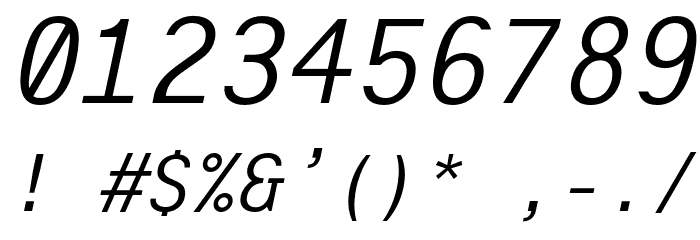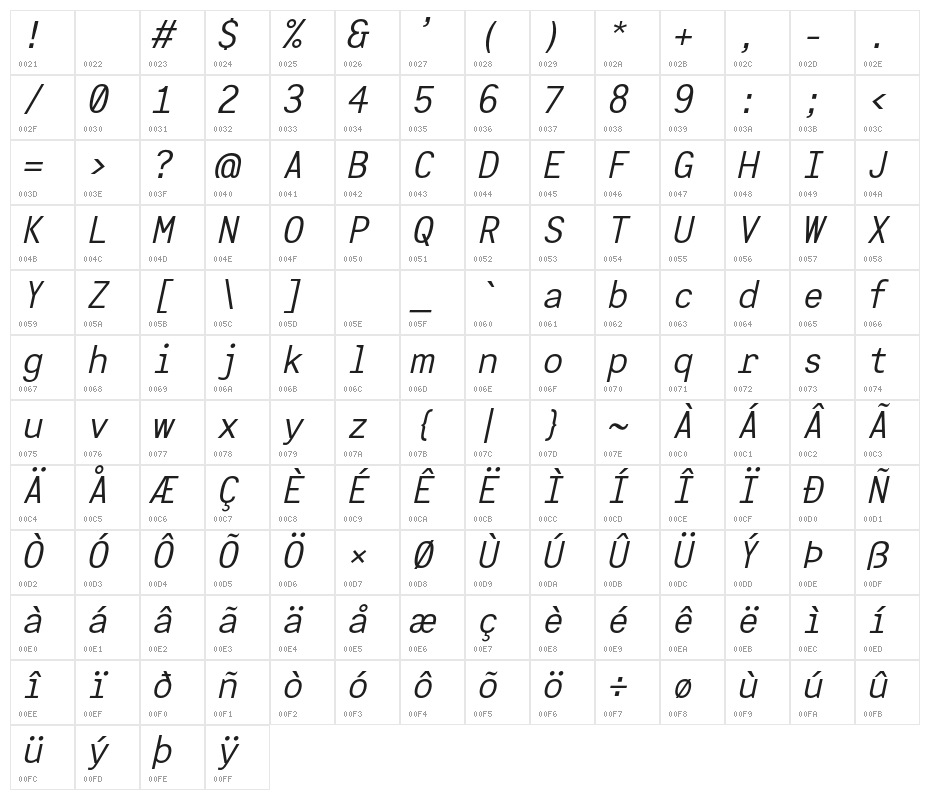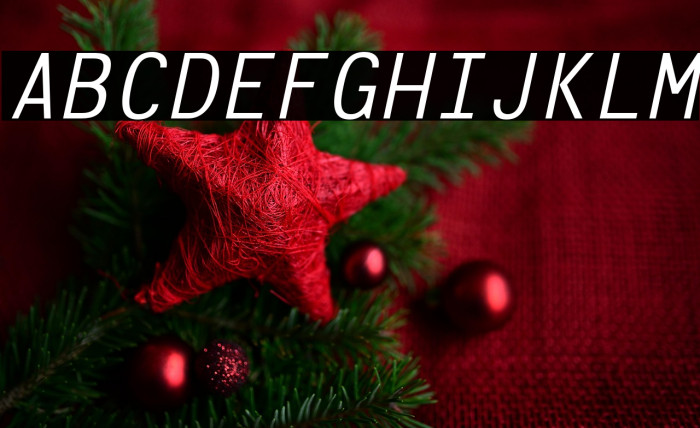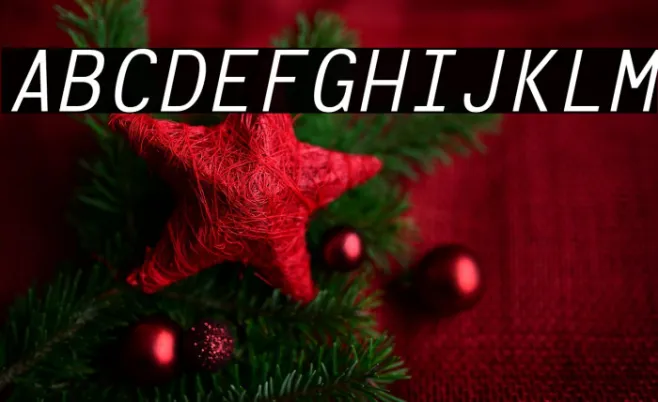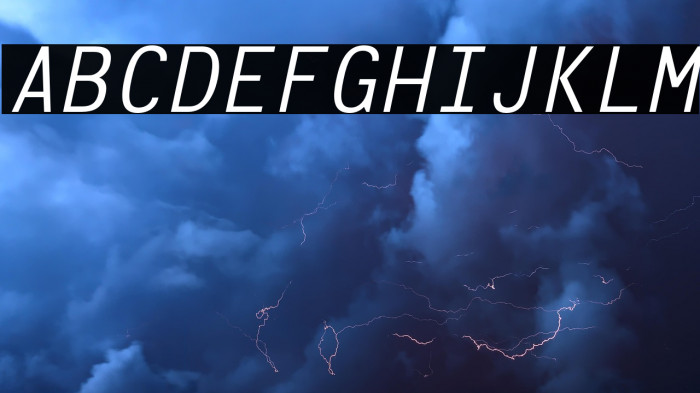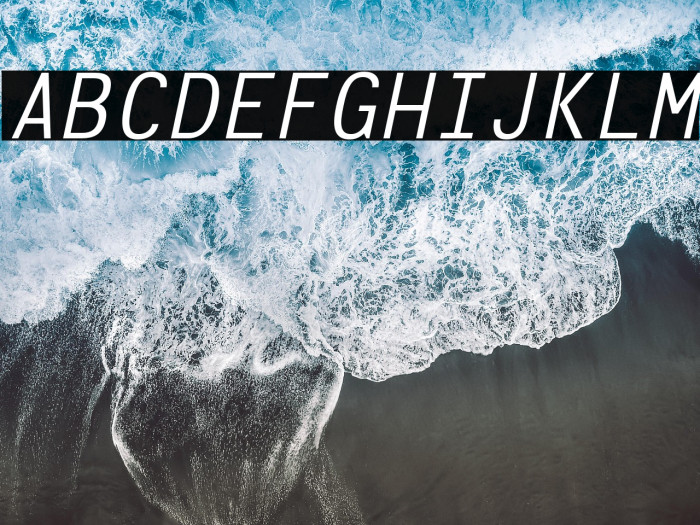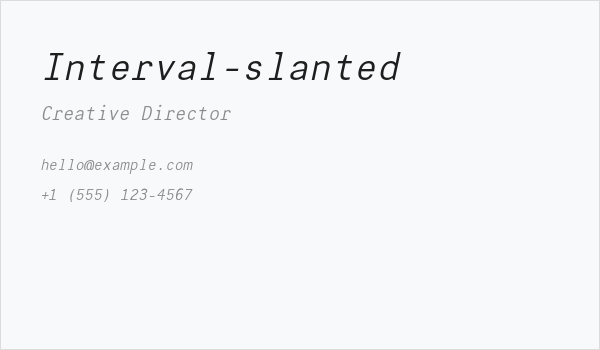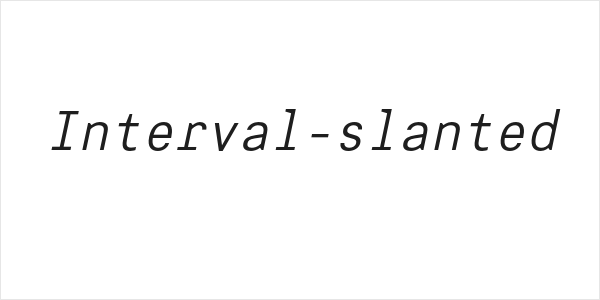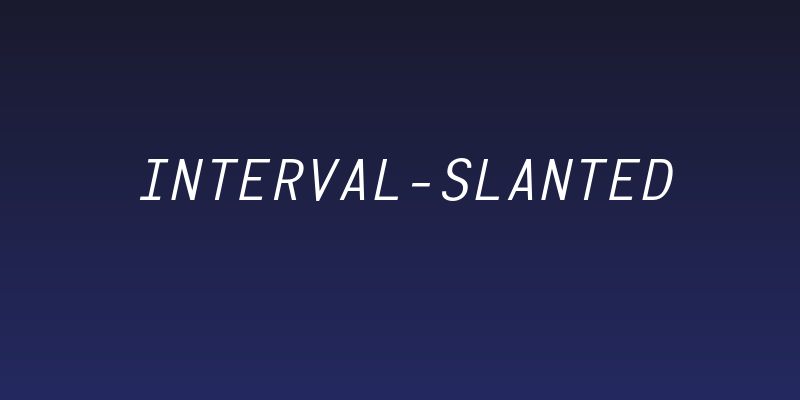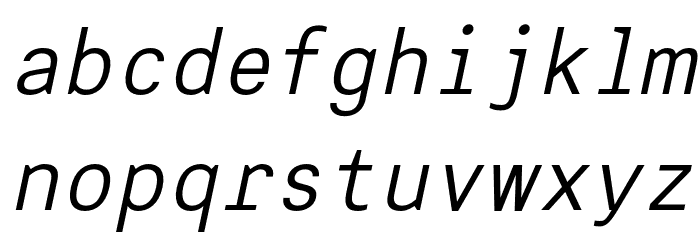
Interval-slanted Font
Interval-slanted Description
This font features a modern and clean design with a distinct slant, giving it a dynamic and forward-moving appearance. The characters are well-defined with a consistent stroke width, offering a sleek and professional look. The uppercase and lowercase letters maintain a uniform style, while the numerals and special characters integrate seamlessly into the overall design. The font's slanted nature adds a sense of motion and energy, making it suitable for contemporary and innovative projects. Its clarity and readability ensure it stands out in various applications.